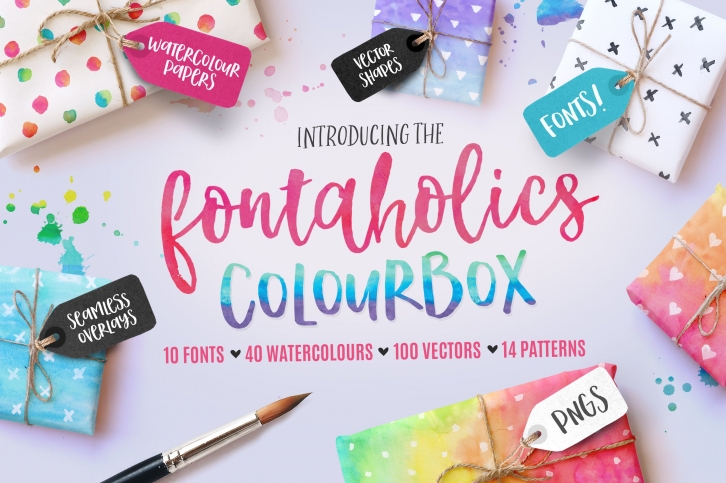
Say hello to the fresh new Fontaholics Colourbox Designer's Pack!
A designer's dream, a handy giant box of watercolour papers, pattern overlays, vectors and yummy fonts- all ready to blend together in your design masterpieces.
WHAT'S INCLUDED IN THE COLOURBOX
• 10 Brand New hand-lettered/painted fonts that blend together perfeclty in type designs ( See Below)
• La Fiesta : An elegant and feminine modern calligraphy script with watercolour edges.
• Maraschino Script : A cheerful calligraphy script with a bouncy baseline.
• Little Anchor : A Wobbly hand-painted script with a carefree nature.
• Blushing Bride : A Flirty hand-lettered script with handy extra opentype lowercase alternate letters*
• Lemonshino : A super-cute upercase font with bounce and charm.
• Strawberry Frosting : A plump and cheery uppercase font with different letters for upper and lowercase letters - it also includes some handy double letter ligatures*
• Happy Days : A haphazard hand-painted font with wobbly edges.
• Bear Hugs : An adorable uppercase serif font oozing with love.
• Vanilla Sprinkles : A messy uppercase calligraphy fonts with watercolour edging.
• Mustard Mustache : Thick and sturdy, an uppercase marker font.